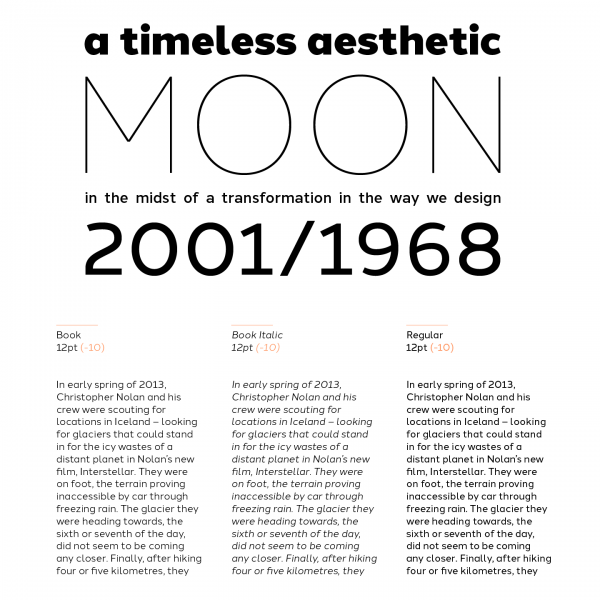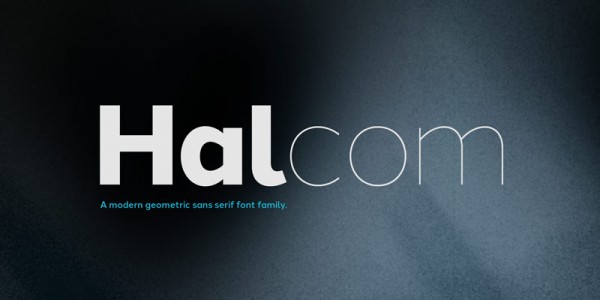
The Halcom font family, a new geometric typeface from The Northern Block Ltd.
Type designer Jonathan Hill of The Northern Block Ltd is well known for his very modern, clean, and geometric typeface releases. The Halcom font family fits seamlessly in this collection. It’s a modern sans serif that draws inspiration from geometric typefaces of the 1920s such as Futura or Avenir.
But Halcom’s design is not just a simple new interpretation of these typefaces. After some researches, Jonathan Hill developed a contemporary sans serif family based on both pure mathematics and optical correctness. This way, he designed a typefaces with a distinctively modern appearance and perfect legibility in all sizes and any media. The Halcom font family is equipped with 8 weights plus italics, 550 characters, alternative lowercases for the letters “a”, “g”, “y”, 5 variations of numerals as well as other OpenType features. The family is available on MyFonts as webfont and conventional desktop font. For addition information on this new typeface, feel free and follow the link below.